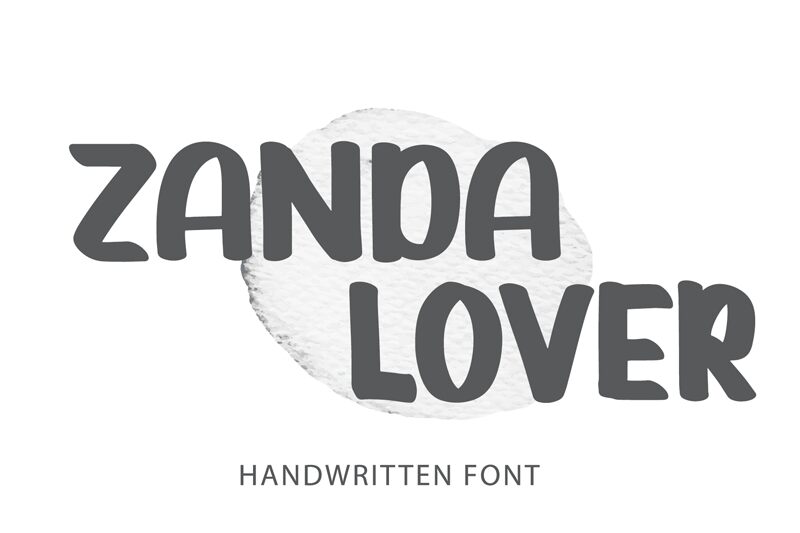
Zanda Lover is a stunning handwritten marker font designed by Bearytype. With its bold and expressive strokes, this semi-bold typeface is perfect for projects that require a touch of personality and charm. Whether you're designing invitations, posters, logos, or branding materials, Zanda Lover will bring your text to life with its unique character. Its flowing script style is perfect for adding a personal touch to any project that requires a handwritten feel. Zanda Lover's versatility means it's suitable for everything from wedding invitations to product packaging and beyond. Let this playful font elevate your designs today!
Zanda Lover